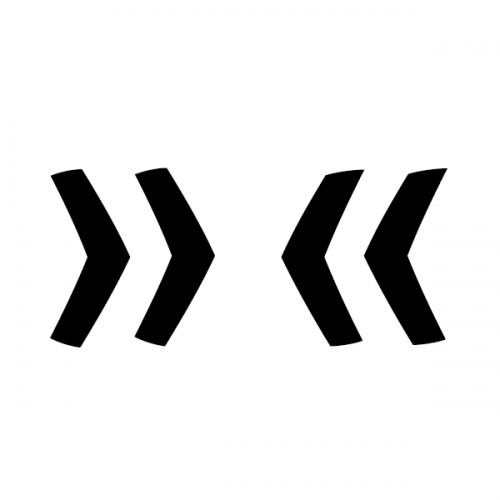
Guillemets are a pair of punctuation marks in the form of sideways double chevrons (« and »), used as quotation mark.
Dutch: guillemets
German: Guillemets, französische Anführungszeichen
Italian: virgolette caporali, virgolette francesi
Polish: cudzysłów ostrokątny francuski